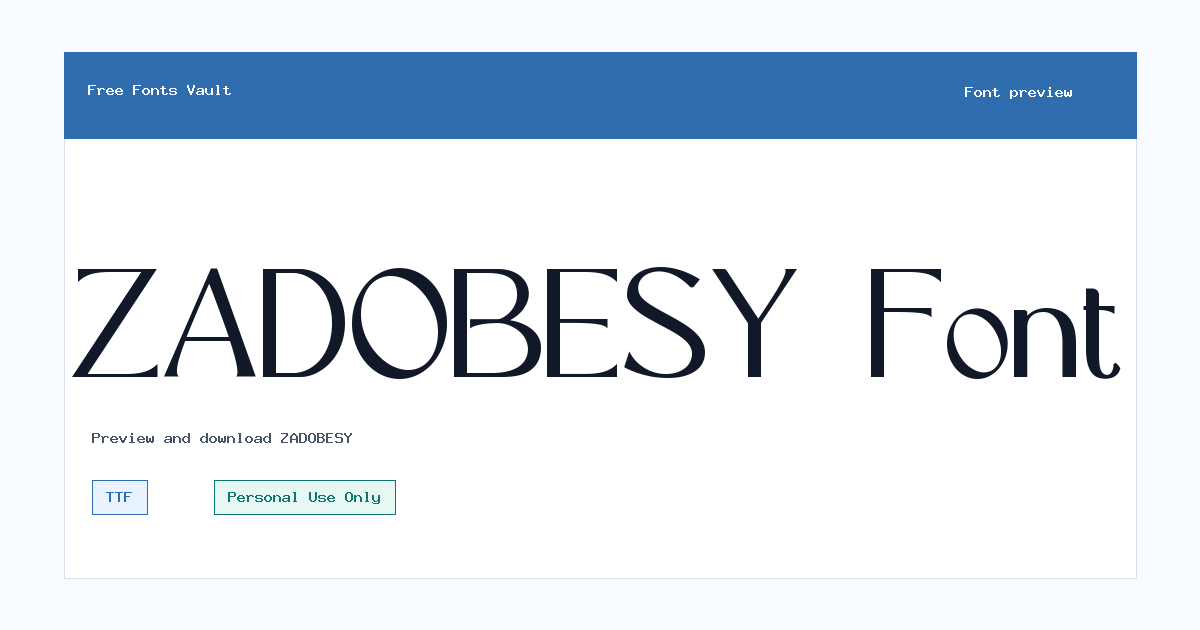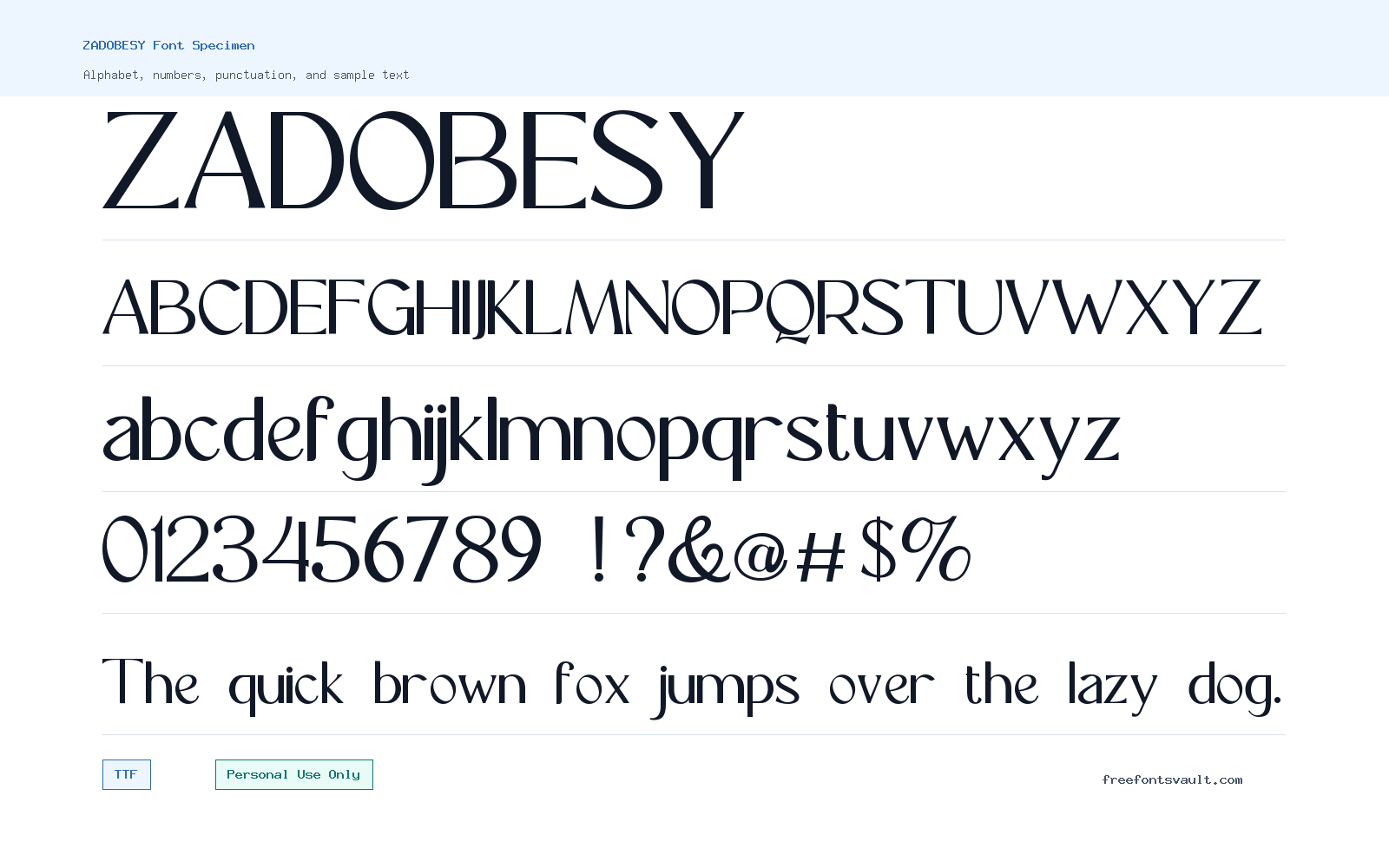
ZADOBESY
ZADOBESY is a sans serif font with a clean, direct look for personal design work. It is a practical choice when you want text that feels modern without adding heavy decoration.
About ZADOBESY Font
ZADOBESY works best as a straightforward display or heading font rather than a long-reading text face. Its sans serif structure gives words a clear outline, so it can suit posters, social graphics, simple logo drafts, personal branding concepts, quote cards, thumbnails, and other short text layouts. Because the family information points to a Regular style, it is safest to treat it as a single-style font and build contrast with size, spacing, color, and supporting typefaces rather than relying on extra weights.
Use the preview tool to test the exact words you plan to design with before downloading. Try your project title in uppercase, title case, and lowercase, then check how the spacing feels at small and large sizes. For short headlines, a little extra letter spacing may make the design feel cleaner. For longer lines, keep the text size comfortable and avoid packing too many words into one block. Pair ZADOBESY with a calm serif or a neutral sans serif for body copy so the main title can stay clear and easy to scan.
- Sans serif style suited to short titles, display text, and personal visual projects.
- Personal posters, quote graphics, social media images, and thumbnail text.
- Logo mockups, name treatments, headings, and simple branding experiments for non-commercial use.
What kind of font is ZADOBESY?
ZADOBESY is listed as a sans serif font. It is best tested for headings, short display text, and personal design layouts.